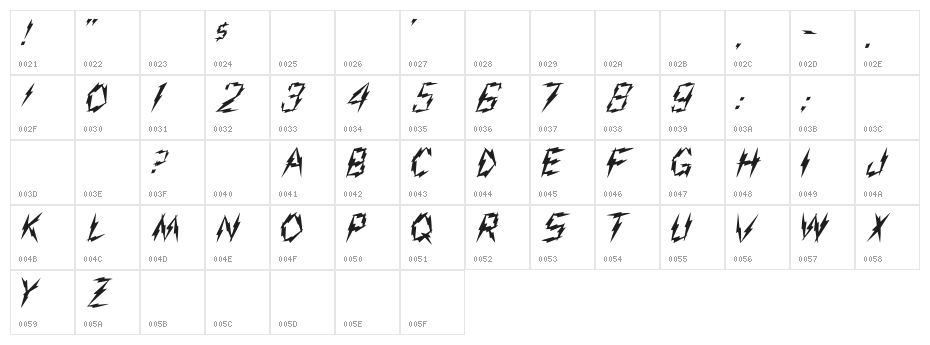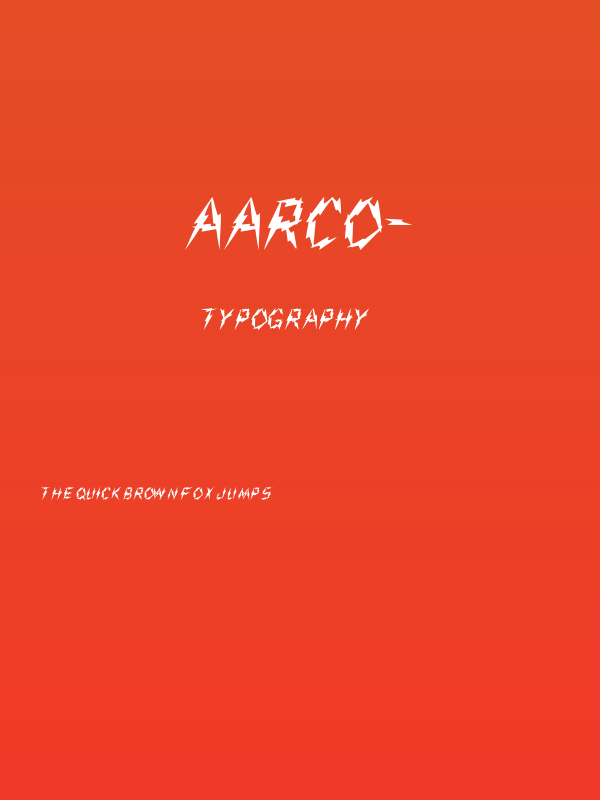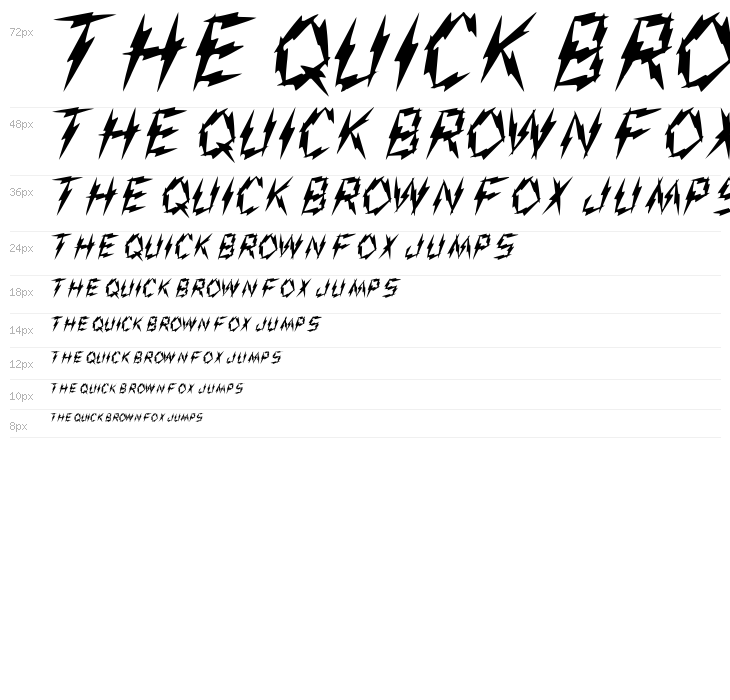
Aarco- Font
Aarco- Description
This font features a bold and jagged design, reminiscent of lightning bolts or sharp shards. Each character is crafted with angular edges and pointed tips, creating a dynamic and aggressive appearance. The uppercase and lowercase letters maintain a consistent style, with the uppercase being slightly more pronounced. Numbers and special characters follow the same sharp aesthetic, ensuring a cohesive look across all elements. The font's unique style makes it stand out, ideal for projects that require a strong visual impact.
| Use Case | Logos, Posters, Headlines |
| Proposed Projects | Perfect for music album covers, extreme sports branding, or edgy fashion labels. |